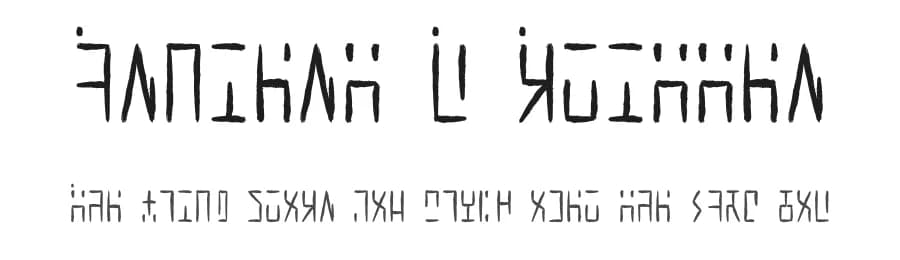
About Ancient G Written Font
Ancient G WRITTEN is my adaptation and extension of SGA/SG1 ANCIENT canon glyphset to create a fuller font which distinguishes case, has punctuation and extended chars, and is designed to be more hand-writing-friendly than the machine-print styles of Ancient, like Anquietas or Alteran. The purpose: so that fans can use ANCIENT lettersets more practically, by applying this font to existing docs, typing in it, or even using it as Windows display font for menus etc. With this handwritten version, the additional intent is to model a practical adaptation of Ancient that can be written by hand more practically. This font serves as a reference for that adaptation but also looks nice for machine use and printing too.
| Designer | Gen Aris |
Ancient G Written Font
by Gen Aris